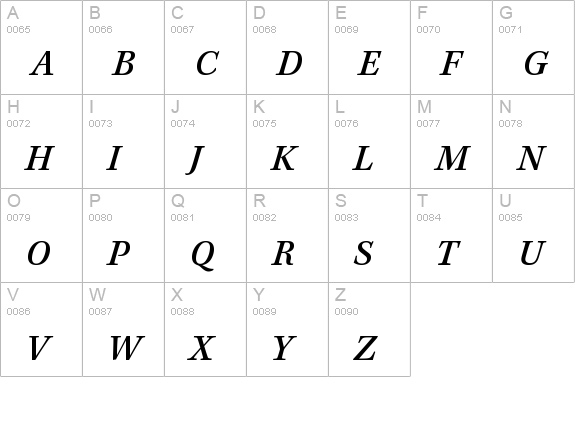
Kepler Std Medium Italic Caption Font Details
Kepler Std Medium Italic Caption is a balanced, medium-weight, italic variant in the Kepler typeface family \xE2\x80\x94 well suited to sub-headlines, navigation, and balanced editorial work.
Kepler Std Medium Italic Caption font is a versatile and elegant typeface that combines the classic elements of serif fonts with a modern touch. With its medium weight and subtly slanted italics, this font is perfect for adding a touch of sophistication to any project. The letterforms in Kepler Std Medium Italic Caption font are meticulously crafted, with clean lines and balanced proportions. The slightly condensed design allows for more efficient use of space, making it ideal for captions, subheadings, and other small text. The versatility of Kepler Std Medium Italic Caption font makes it suitable for a wide range of applications, from print materials such as magazines and brochures to digital designs like websites and social media graphics. Its legibility and readability ensure that your message is conveyed clearly and effectively. One of the best things about Kepler Std Medium Italic Caption font is that it is available for free download at FontsMarket.com. This means that you can easily access and use this font in your projects without any additional cost. Whether you are a professional designer or a hobbyist, this free font is a valuable addition to your font library. Download Kepler Std Medium Italic Caption font today and elevate your designs with its elegant and modern aesthetic. With its versatility and availability as a free download, this font is a must-have for any creative project.